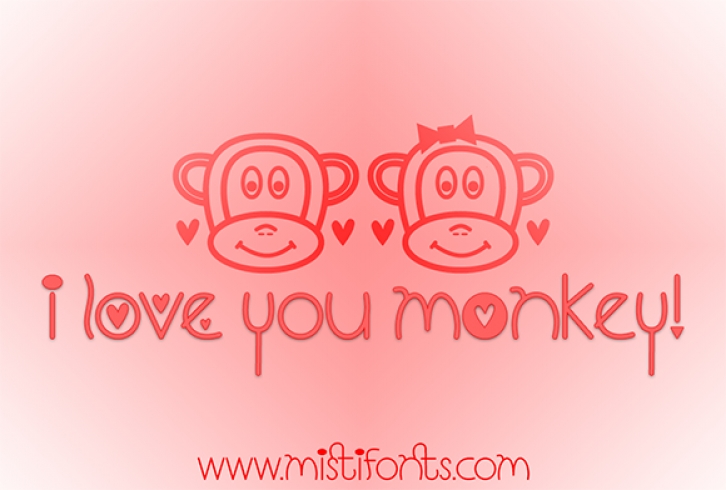
I Love You Monkey is a perfect font for your Valentine’s Day projects! This font set is adorable and youthful, with sweet messages that can add a lot of needed sweetness this Valentine’s season.